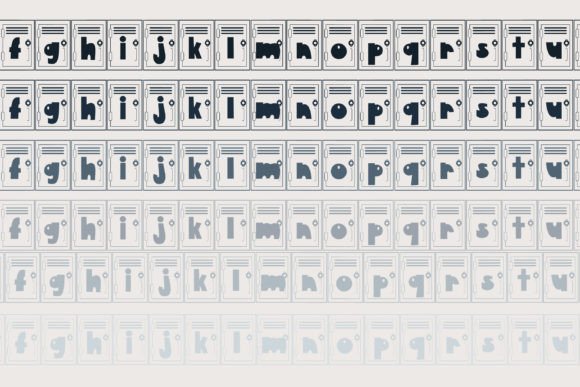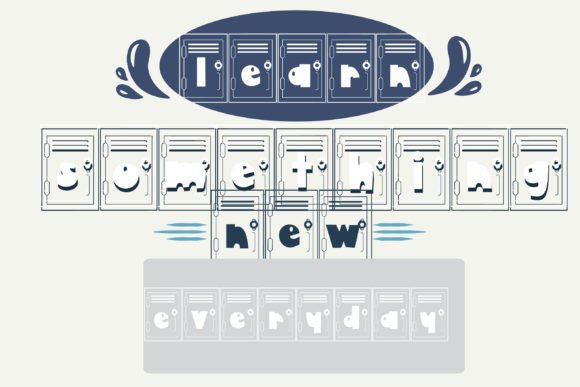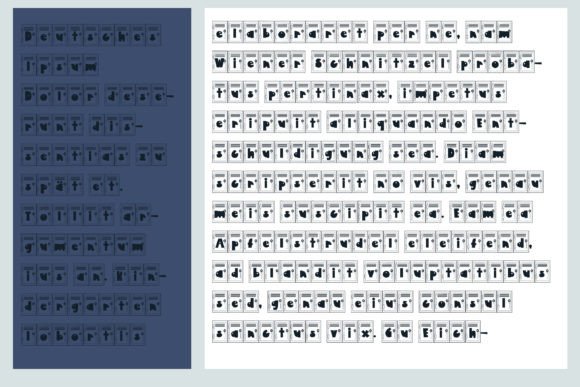
Introduction to Lock It Up Font Font
Fonts play a crucial role in design, and the Lock It Up Font font is a typeface that brings both character and versatility to any project. Whether you’re working on a branding project, a website, or a print design, the Lock It Up Font font offers a unique style that can elevate your work.
Lock It Up font is a charming and clever sans serif typeface that playfully arranges letters within school lockers.
This nostalgic design brings a touch of scholastic nostalgia to your projects, reminiscent of passing notes and hallway conversations Whether for educational materials or fun creations, Lock It Up adds a unique twist thatβs sure to capture attention and evoke fond memories of school days.
Key Features of Lock It Up Font Font
Why Choose Lock It Up Font Font?
The Lock It Up Font font is more than just a typeface β it’s a design tool that helps you communicate your message with style and clarity. Its unique character set and versatile design make it suitable for a wide range of applications, from elegant invitations to bold headlines.
With its carefully crafted letterforms and balanced proportions, the Lock It Up Font font ensures readability and visual appeal across all mediums.
What makes Lock It Up Font font special?
The Lock It Up Font font stands out with its unique design, exceptional readability, and versatility across various design applications.